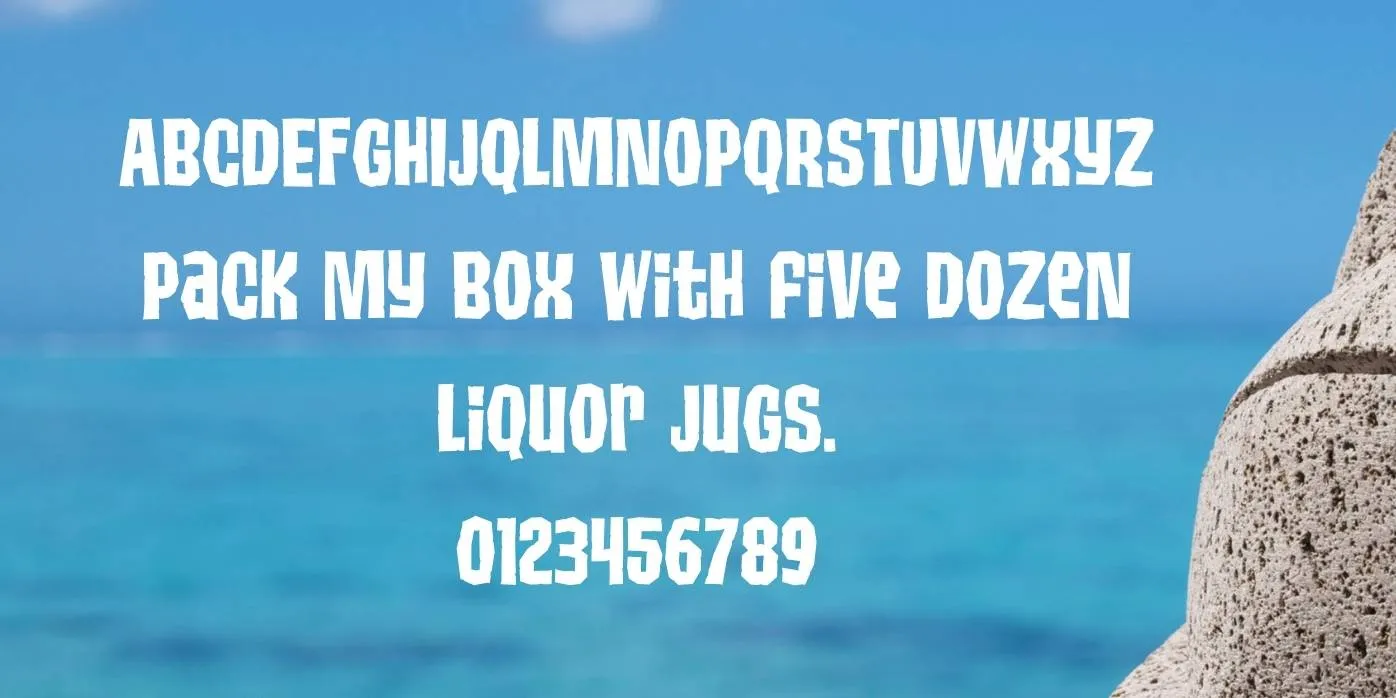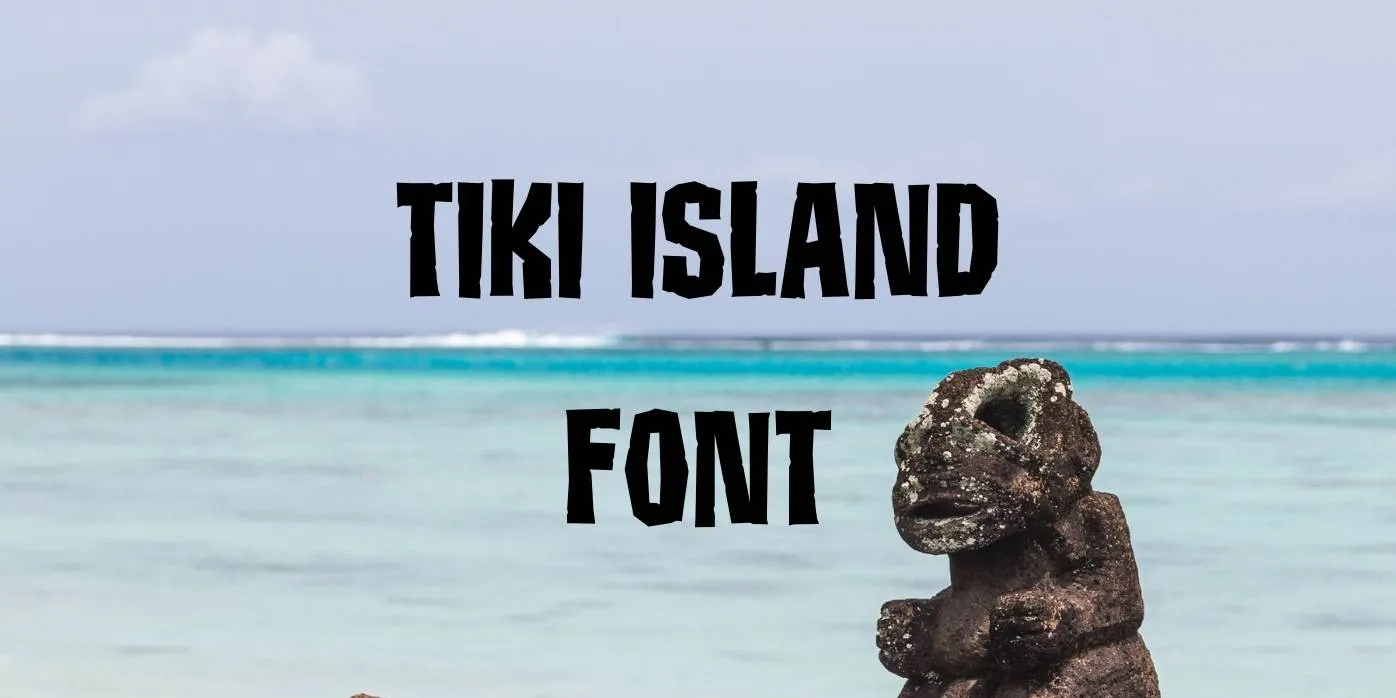
Tiki Island Font
Here, we are introducing a most perfect and stylish font named Tiki Island Font. It was designed by a famous designer named Adrian Frutiger. It was simply a fancy typeface. This stunning typeface has 6 different weights.
This typeface is most suitable for designing fields. This font family has much more interesting and standard features. This typeface has different glyphs. It is popular due to its neatness and cleanness.
This font family is different due to its unique, advanced, and flexible features. Different designers used this font in their functions and tasks because of its outstanding results. This typeface is free for personal use. In an Organizational system, this font family is used for designing logos, T-shirts and greeting cards, and much more.
This typeface gave a unique look to your projects. If you want to earn progress you can use this font family for working on your projects and functions. This typeface supports different international languages. Some common languages are French, Latin, and many more.